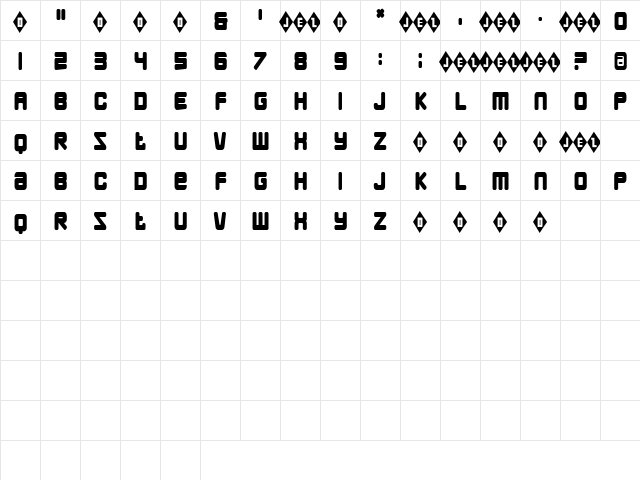
Ace Regular
Design Context for Ace
Ace is a composed and adaptable typeface that performs quietly and consistently across a wide range of design contexts.